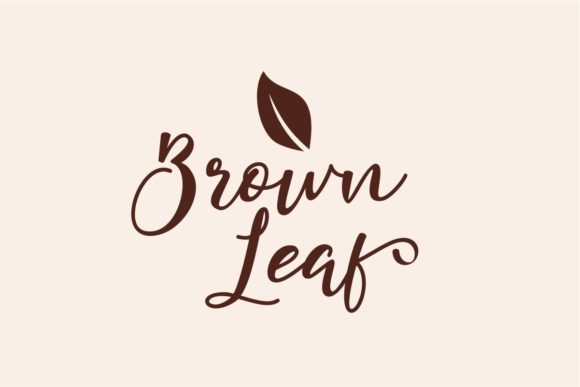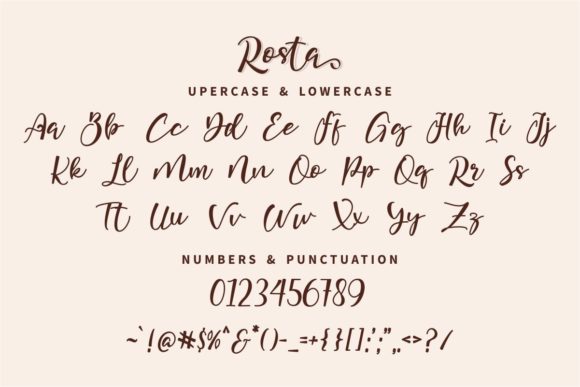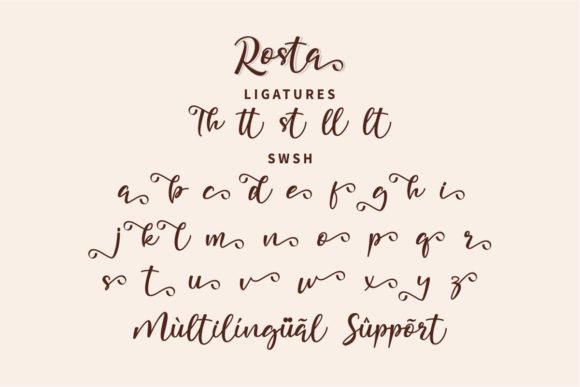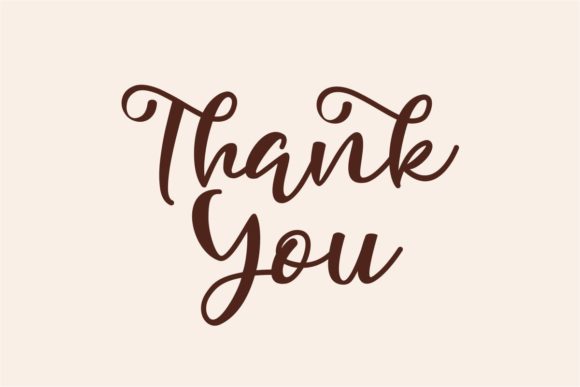
Introduction to Rosta Font Font
Fonts play a crucial role in design, and the Rosta Font font is a typeface that brings both character and versatility to any project. Whether you’re working on a branding project, a website, or a print design, the Rosta Font font offers a unique style that can elevate your work.
| 📌 Font Name | Rosta Font |
| 👤 Author | GFRcreative |
Rosta is a modern and flowing handwritten font.
This font is PUA encoded which means you can access all of the glyphs and swashes with ease Fall for its lovely style and use it to create gorgeous designs.
Key Features of Rosta Font Font
Why Choose Rosta Font Font?
The Rosta Font font is more than just a typeface – it’s a design tool that helps you communicate your message with style and clarity. Its unique character set and versatile design make it suitable for a wide range of applications, from elegant invitations to bold headlines.
With its carefully crafted letterforms and balanced proportions, the Rosta Font font ensures readability and visual appeal across all mediums.
What makes Rosta Font font special?
The Rosta Font font stands out with its unique design, exceptional readability, and versatility across various design applications.